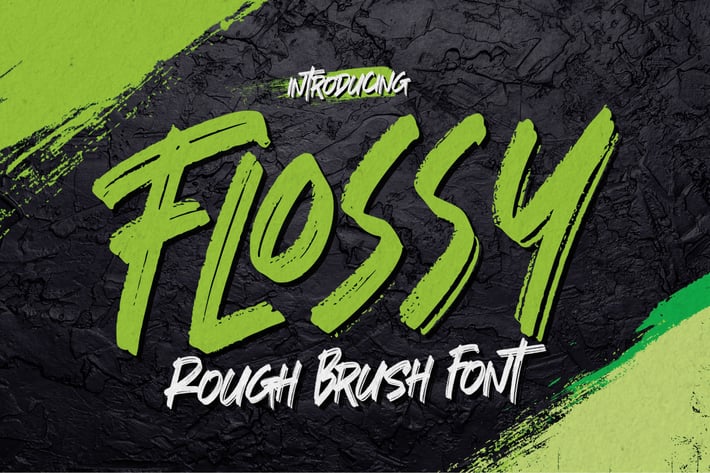
Flossy - Rough Brush Font
Flossy - Handwritten Brush font with a Rough style and dramatic movement. This font is great for your next creative project such as logos, printed quotes, invitations, cards, product packaging, headers, Logotype, Letterhead, Poster, Label, and etc.
+ Ligature
+ Multilingual